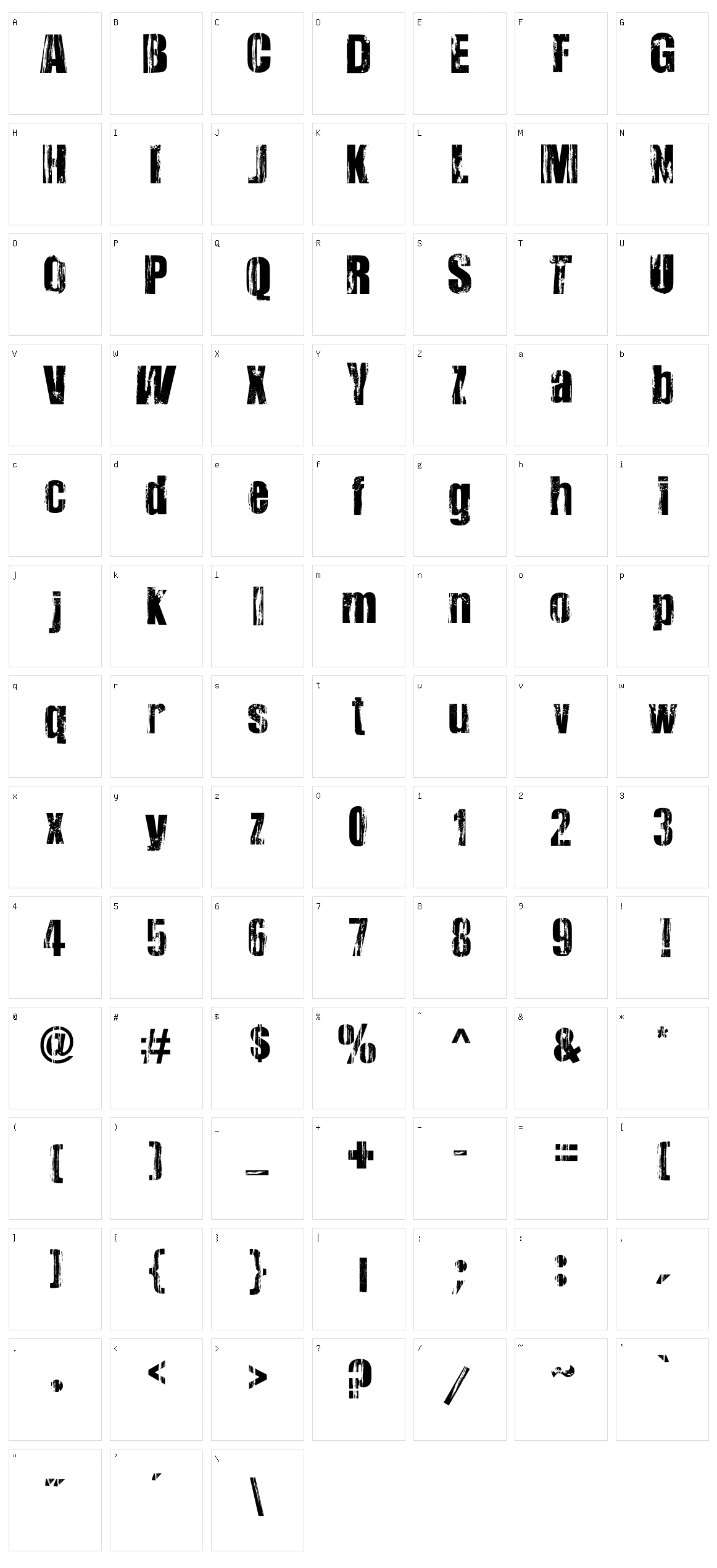
The free font Very Damaged is carefully designed by Galdino Otten Fonts, showcasing a thoughtful balance of creativity and usability and falls under the Destroy font style. When you download the ZIP file, it contains only 238.94 KB of font files, making it lightweight and quick to download. Please review the license details below to understand permitted usage and distribution rights. If license information is not available, we recommend using this font for personal projects only or contacting the author directly for commercial usage permissions.